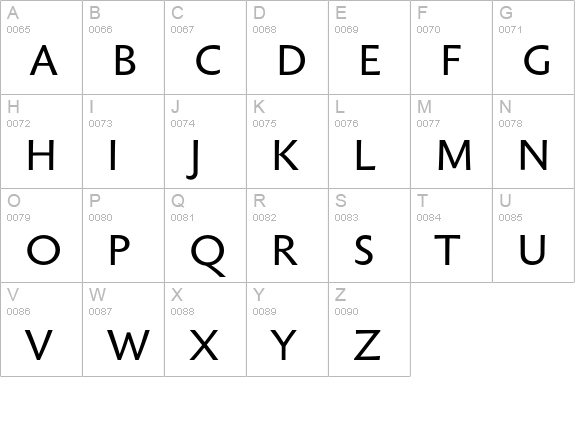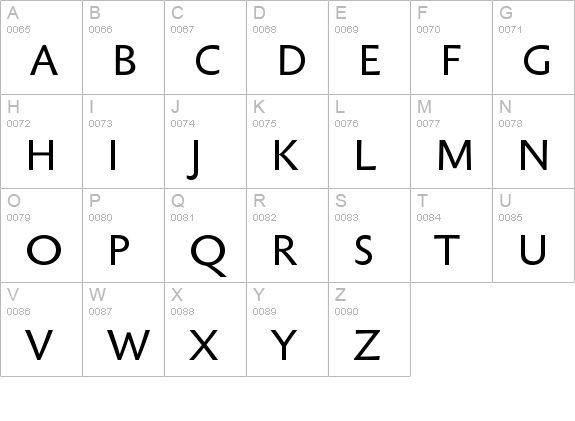
Sebastian Text Pro Font Details
Introducing Sebastian Text Pro, a stunning font that exudes elegance and sophistication. With its refined curves and impeccable letterforms, this typeface is perfect for adding a touch of class to any design project. Whether you're creating wedding invitations, branding materials, or editorial layouts, Sebastian Text Pro is sure to elevate your work to new heights. What sets Sebastian Text Pro apart is not only its exceptional design but also its versatility. This font is equally at home in both digital and print applications, ensuring that your message will shine across various mediums. Its legibility and readability make it an excellent choice for body text, while its distinct charm and attention to detail make it an ideal option for headlines and titles. One of the most enticing aspects of Sebastian Text Pro is that it is available for free. Yes, you read that right. This premium font can be freely downloaded at FontsMarket.com, enabling designers, creatives, and typography enthusiasts to access its beauty without breaking the bank. Now, you can enjoy the sophistication and elegance of Sebastian Text Pro without any limitations. So, why wait? Download Sebastian Text Pro today and experience the timeless beauty and versatility of this remarkable font. With its seamless integration into your projects, you'll be able to captivate your audience and leave a lasting impression. Don't miss out on the opportunity to enhance your designs with this exquisite typeface – it's just a click away at FontsMarket.com.